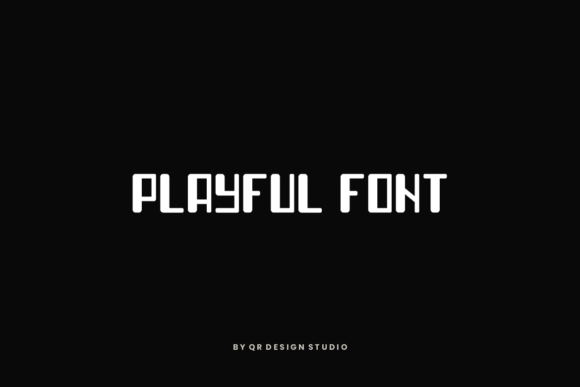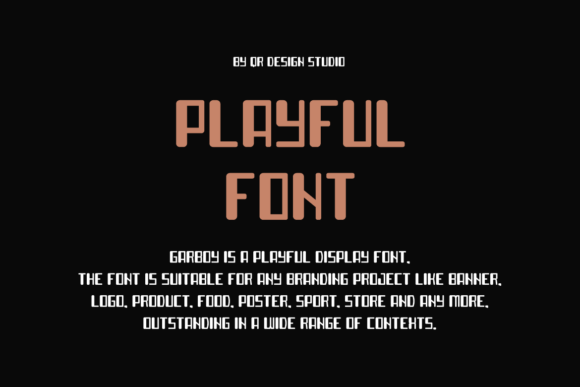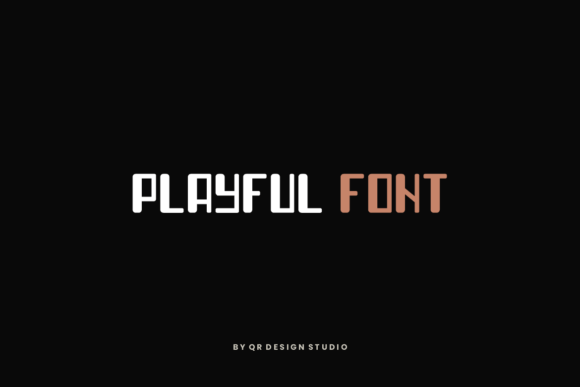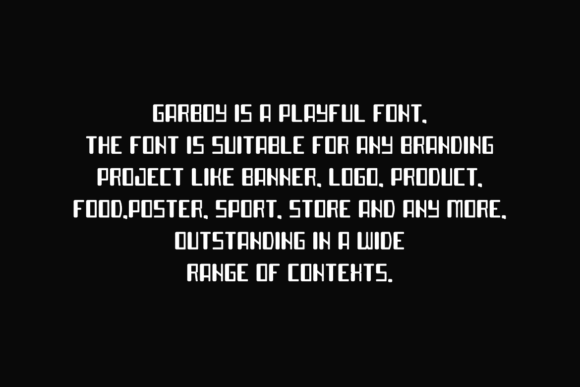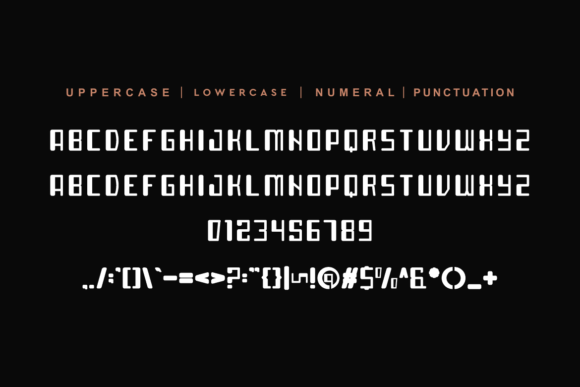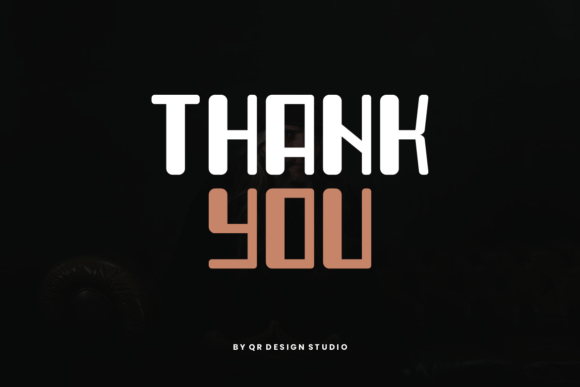
The Ultimate Design Game-Changer: Garboy Font
I’ll never forget the time I was working on a project for a bold and edgy client, and I just couldn’t find the right font to match their vibe. I scoured the internet, tried out dozens of fonts, but nothing seemed quite right. That was until I stumbled upon the Garboy font. It was like a breath of fresh air – bold, assertive, and effortlessly cool. In this article, I’ll share my love for the Garboy font, its features, and how to make the most of it in your designs.
- ✨ **Bold and Assertive**: Garboy font is perfect for making a statement. Its bold and assertive personality is sure to grab attention and elevate your designs.
- ✅ **Versatile**: Whether you’re working on a logo, poster, or social media graphic, Garboy font adapts seamlessly to any design style.
- 💡 **Unique Character**: The font’s sans-serif design and carefully crafted glyphs give it a distinctive character that’s hard to find in other fonts.
While Garboy font is an incredible asset to any design library, there are a few things to keep in mind:
- 🤔 **Limited Conveyancing**: Some users have noted that the font may not be suitable for body text or lengthy paragraphs, as it can be a bit overpowering.
- ⚠️ **Occasional Kerning Issues**: As with any font, there may be occasional kerning issues, especially when using the font at smaller sizes.
The Story Behind Garboy Font
While the origins of Garboy font are shrouded in mystery, it’s said to have been designed by a young typographer who wanted to create a font that would stand out in a crowded design landscape. Inspired by urban landscapes and modern architecture, the designer carefully crafted each glyph to convey a sense of boldness and confidence.
| What is the best use for Garboy font? | Garboy font is perfect for headlines, titles, and short-form text where you want to make a bold statement. |
| Is Garboy font suitable for body text? | While it’s possible to use Garboy font for body text, it’s not recommended, as it can be overpowering. Instead, use it for headings and short paragraphs. |
| Is Garboy font available in different weights? | Currently, Garboy font is available in a single bold weight, but the designer may release additional weights in the future. |
In conclusion, Garboy font is an incredible asset to any design library. Its bold and assertive personality, versatility, and unique character make it perfect for a wide range of design projects. With its OpenType features, glyphs, and stylistic alternates, you can experiment with different styles and effects to elevate your designs.